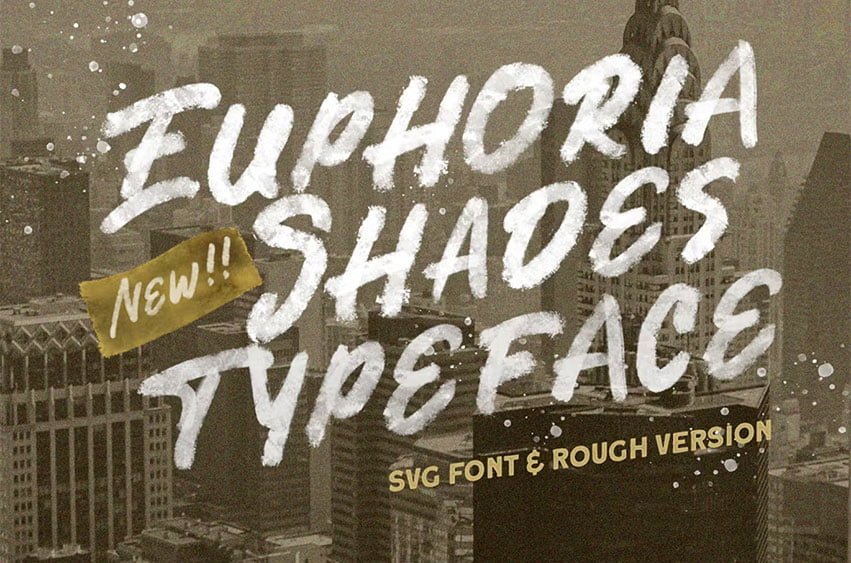
Euphoria Shades Font is a textured SVG font designed to enhance your designs with its unique style. It comes in two versions: solid and rough, allowing you to choose the level of texture and intensity that best suits your project. The textured elements of the font add an eye-catching quality, making it stand out and capture attention.
This font truly chic in a wide range of design applications. Whether you’re working on branding projects, advertising materials, posters, or social media graphics, Euphoria Shades can effortlessly elevate your designs and engages the audience.